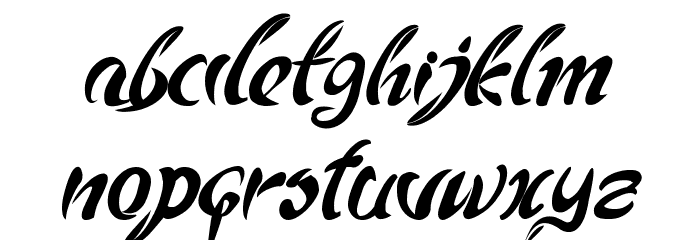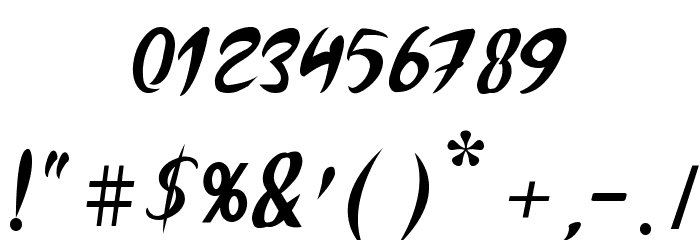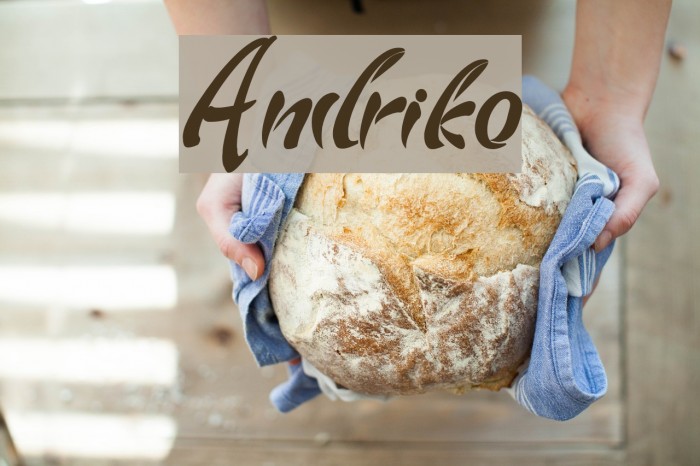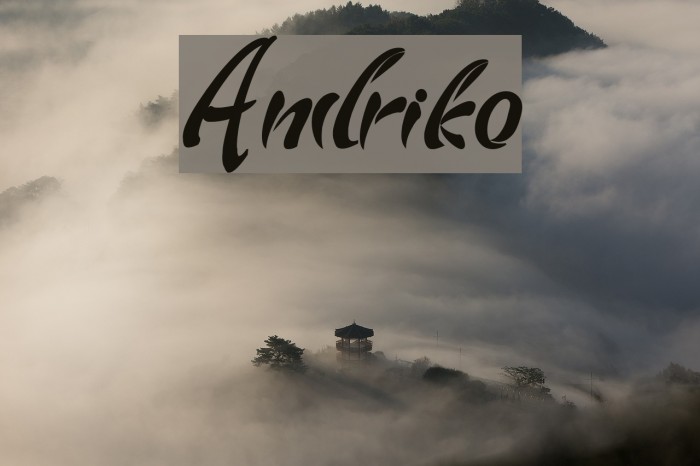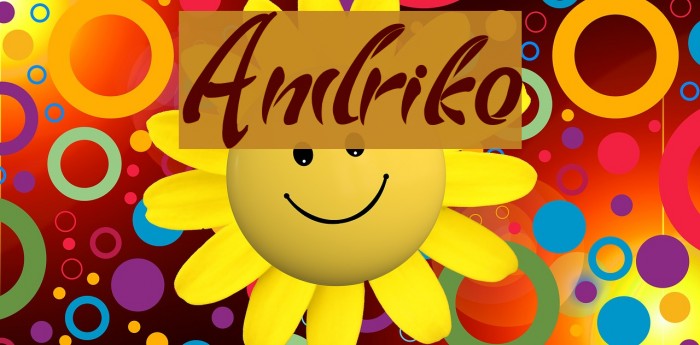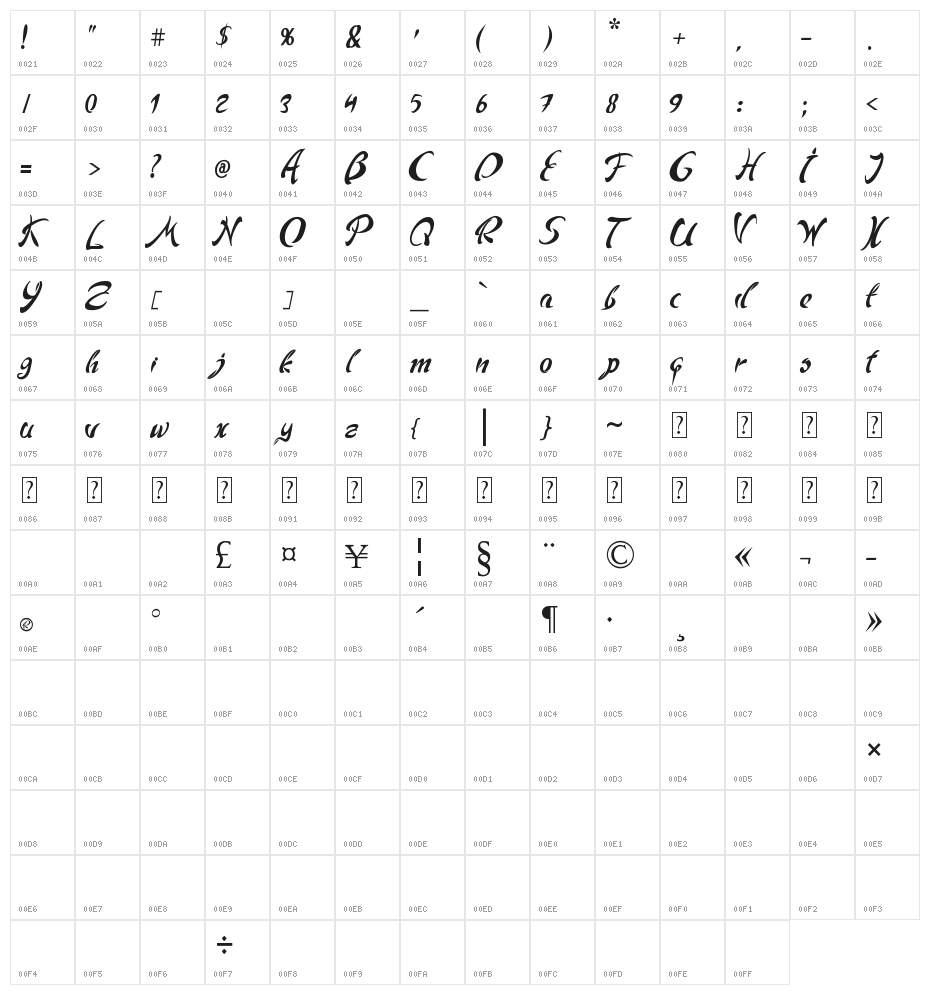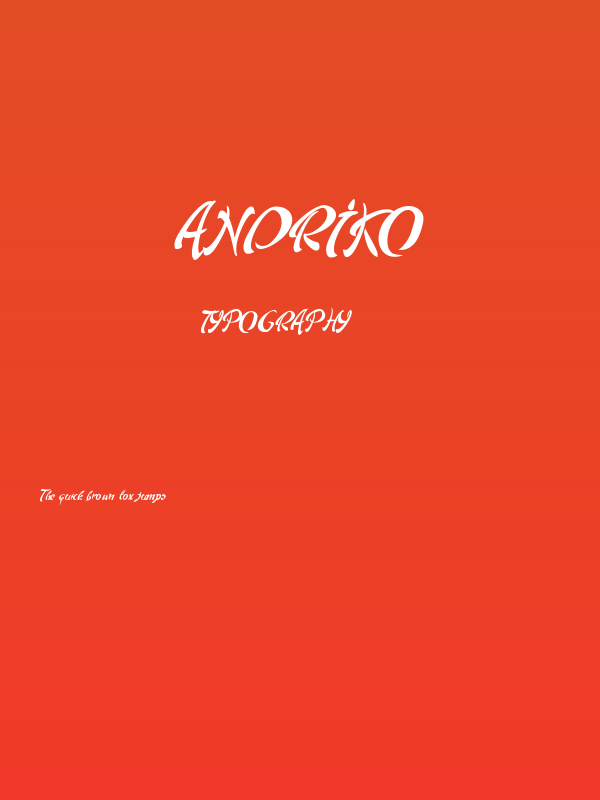
Andriko Font
This font features a dynamic and flowing script style, characterized by its elegant and cursive letterforms. The uppercase letters are bold and sweeping, with a sense of movement and flair that adds a dramatic touch. The lowercase letters maintain a consistent flow, with smooth curves and a slightly slanted orientation, enhancing the handwritten feel. Numbers and special characters are designed to complement the overall aesthetic, maintaining the same fluidity and style. This font is ideal for projects that require a personal and artistic touch, such as invitations, greeting cards, or branding materials.
A dynamic and flowing script font with elegant, cursive letterforms.
- Proposed Projects: Ideal for invitations, greeting cards, branding, and artistic projects.
- Category: Script
- Use Case: Logos, Headlines, Artistic projects